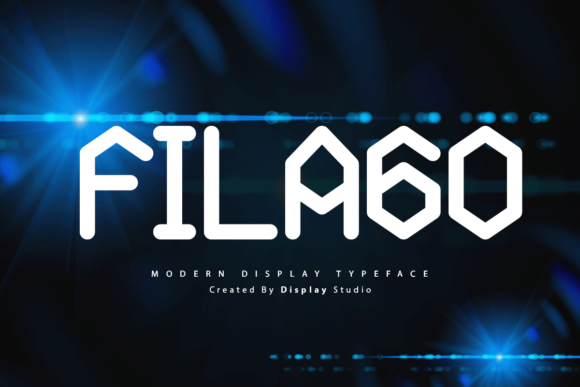
Filago Font: The Epitome of Modernity and Technological Prowess
Embark on a typographical odyssey with Filago Font, the quintessential display font that embodies the essence of modernism and technological prowess. This font is more than just a collection of letters; it's an artistic expression that captures the spirit of the future, allowing you to craft designs that exude innovation and sophistication.
Visualize your words taking on a life of their own, imbued with the sleek contours and sharp angles that define Filago Font. Its robotic-inspired aesthetics evoke a sense of precision and cutting-edge allure, perfect for projects that demand a futuristic, high-tech edge. Unleash your imagination and witness the transformative power of Filago Font as it elevates your designs to unprecedented heights.
Filago Font is a versatile chameleon, effortlessly adapting to a myriad of creative endeavors. Whether you're crafting a modern resume that demands attention, designing eye-catching posters that command a second glance, or creating website layouts that radiate contemporary elegance, Filago Font is your trusted companion. Let your creativity flourish as you explore the boundless possibilities that await with this remarkable font.
Step into the future with Filago Font, the font that shatters the boundaries of convention and propels your designs into the digital stratosphere. Its futuristic charm will leave an indelible mark on your audience, captivating their attention and igniting their imaginations. Embrace the allure of modernity and technological sophistication with Filago Font, and elevate your creations to new levels of brilliance.